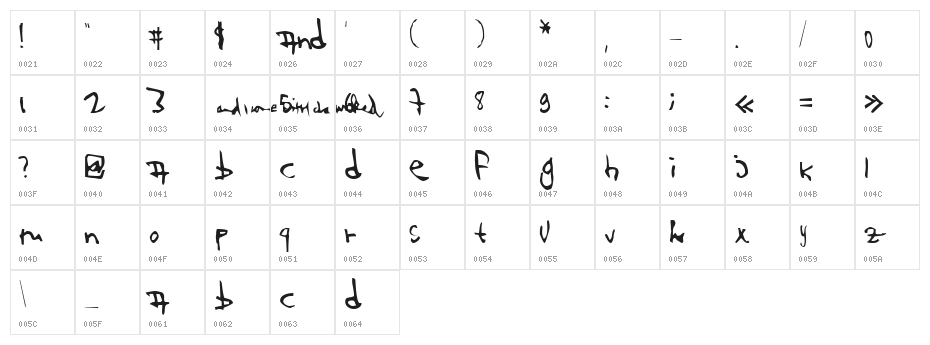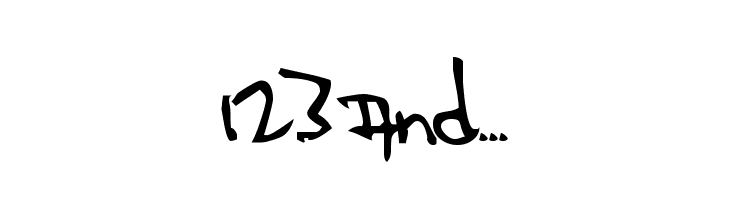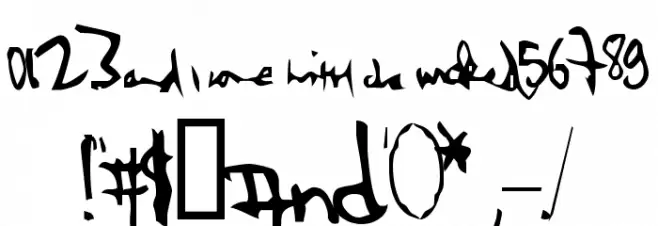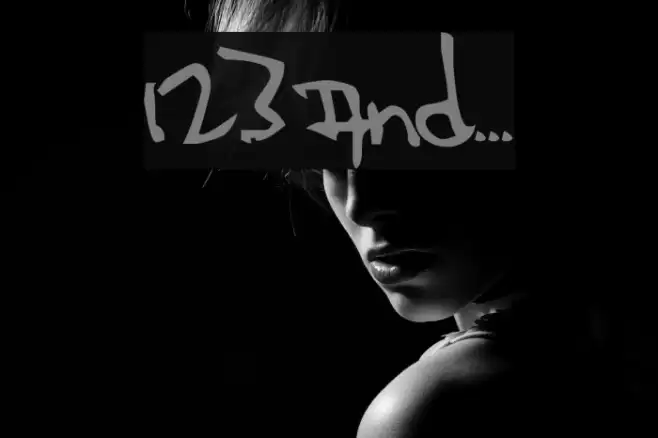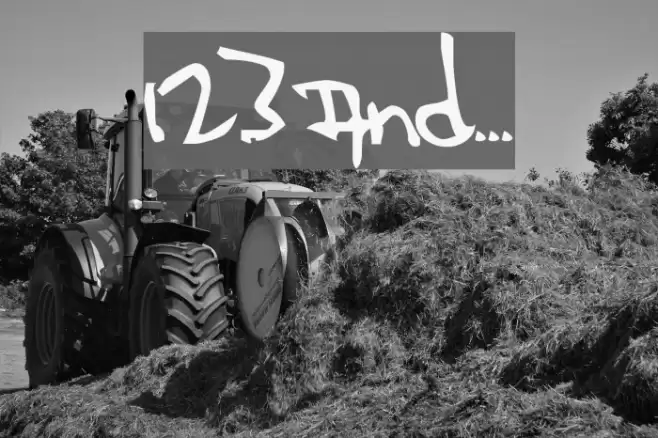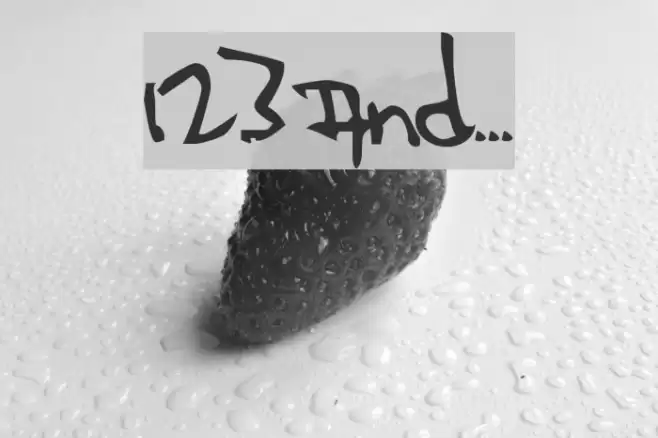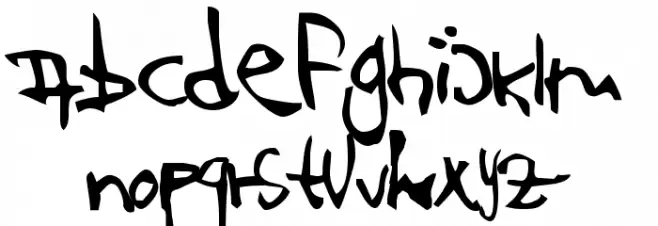
123 and... Font
| カテゴリ | Quirky |
| 用途 | Logos, Posters, Artistic projects |
| おすすめプロジェクト | Ideal for album covers, street art-inspired posters, edgy branding, and creative digital artwork. |